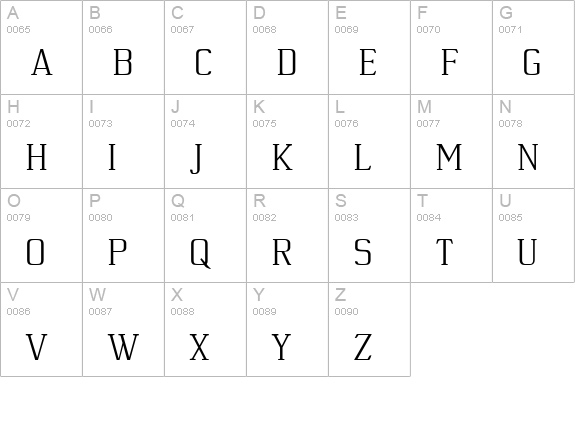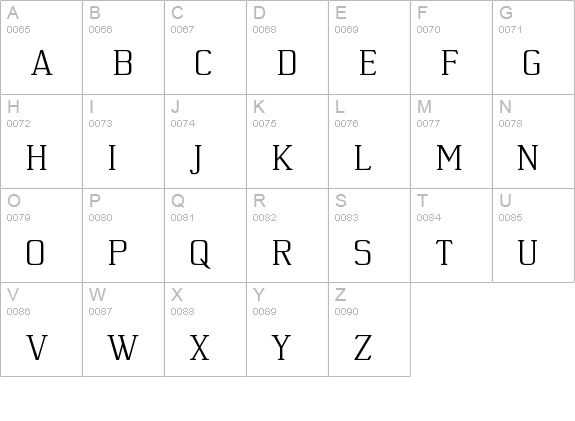
Quatsity Font Details
Introducing Quatsity, a stunning font that combines elegance and sophistication with a touch of modernity. This versatile typeface is perfect for adding a unique and stylish touch to any project. Whether you're designing a logo, a website, or creating eye-catching graphics, Quatsity is sure to make a lasting impression. With its sleek lines and sleek curves, Quatsity captures attention effortlessly. The clean and crisp letterforms are meticulously crafted, ensuring legibility at any size. The font features a perfect balance between thin and bold strokes, giving your designs a harmonious and polished look. But the best part? Quatsity is absolutely free! That's right, this incredible font is freely available to download at FontsMarket.com. Now you can enjoy the beauty and versatility of Quatsity without breaking the bank. Whether you're a professional designer or a hobbyist, this font is a must-have in your collection. Quatsity is compatible with both Mac and PC, making it easily accessible to everyone. Its extensive character set includes uppercase and lowercase letters, numbers, punctuation, and special characters. With such versatility, Quatsity can be used in a variety of projects, from branding and packaging to invitations and social media posts. So don't miss out on this amazing opportunity to elevate your designs with Quatsity. Download this exceptional font for free at FontsMarket.com and let your creativity soar. With Quatsity, your projects will exude sophistication, elegance, and a touch of modernity that will captivate your audience.